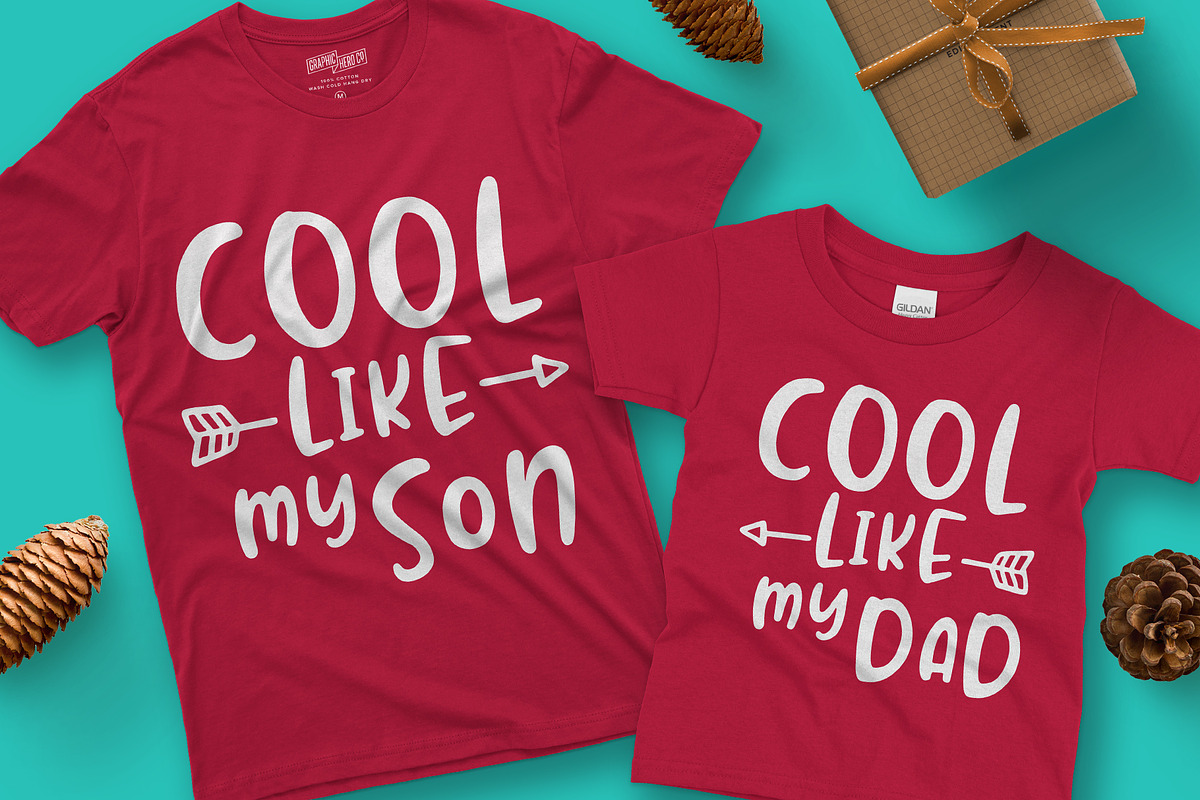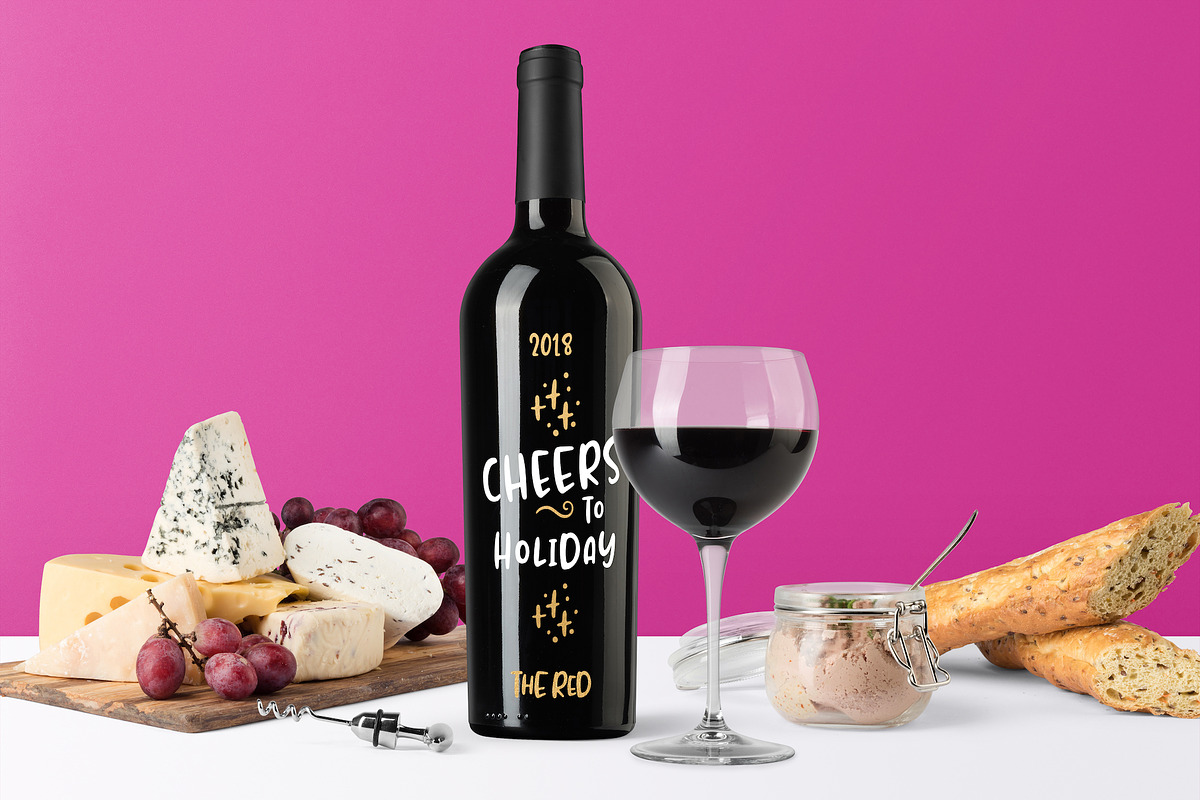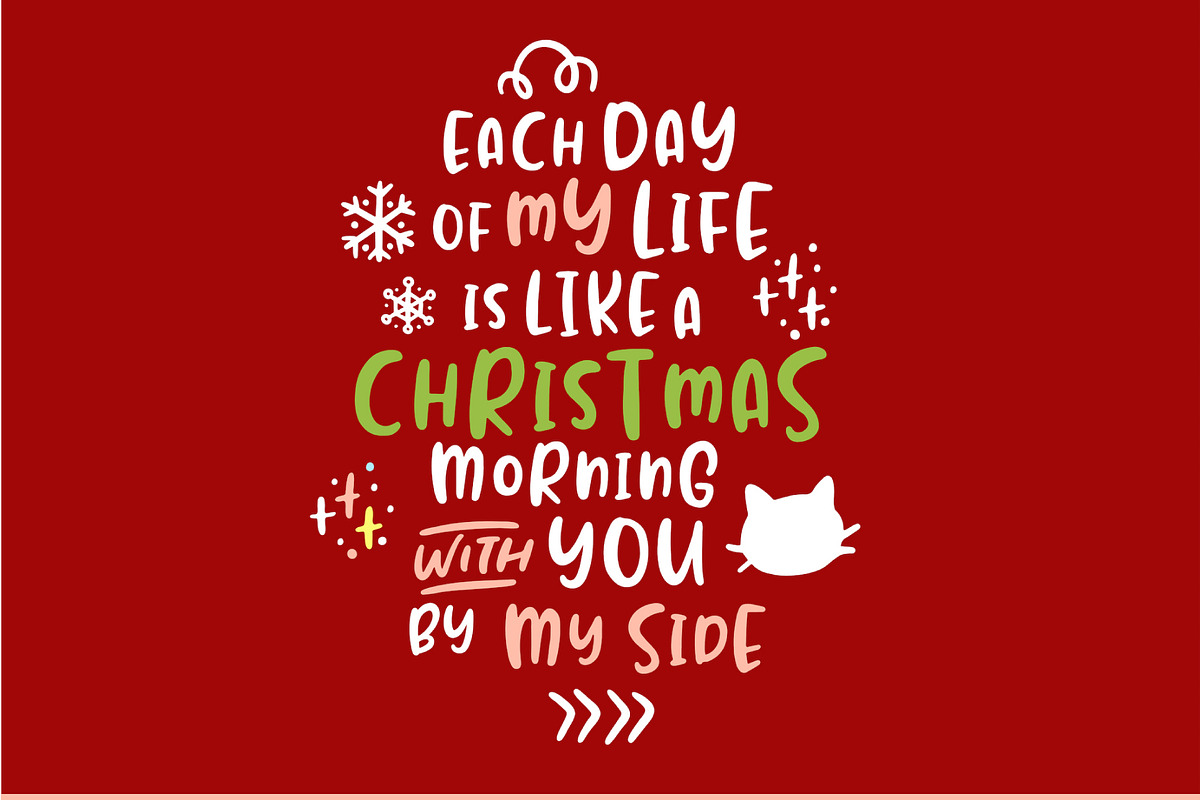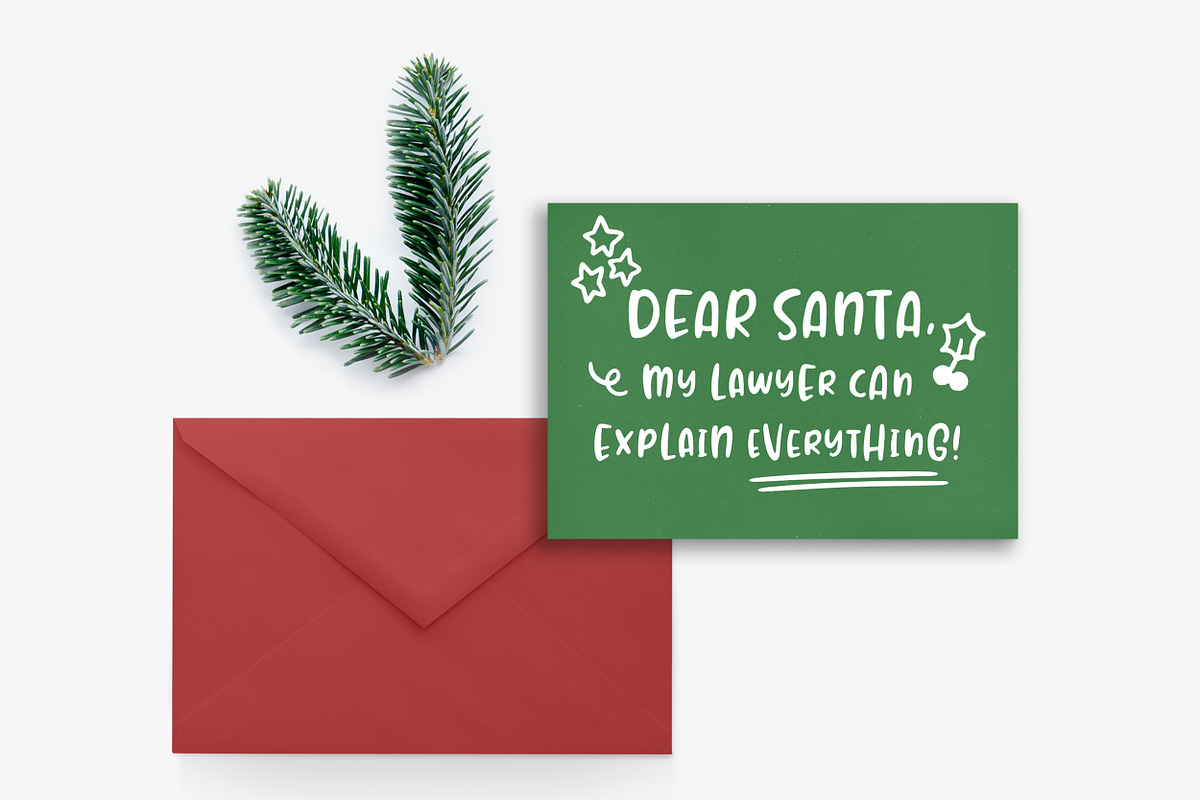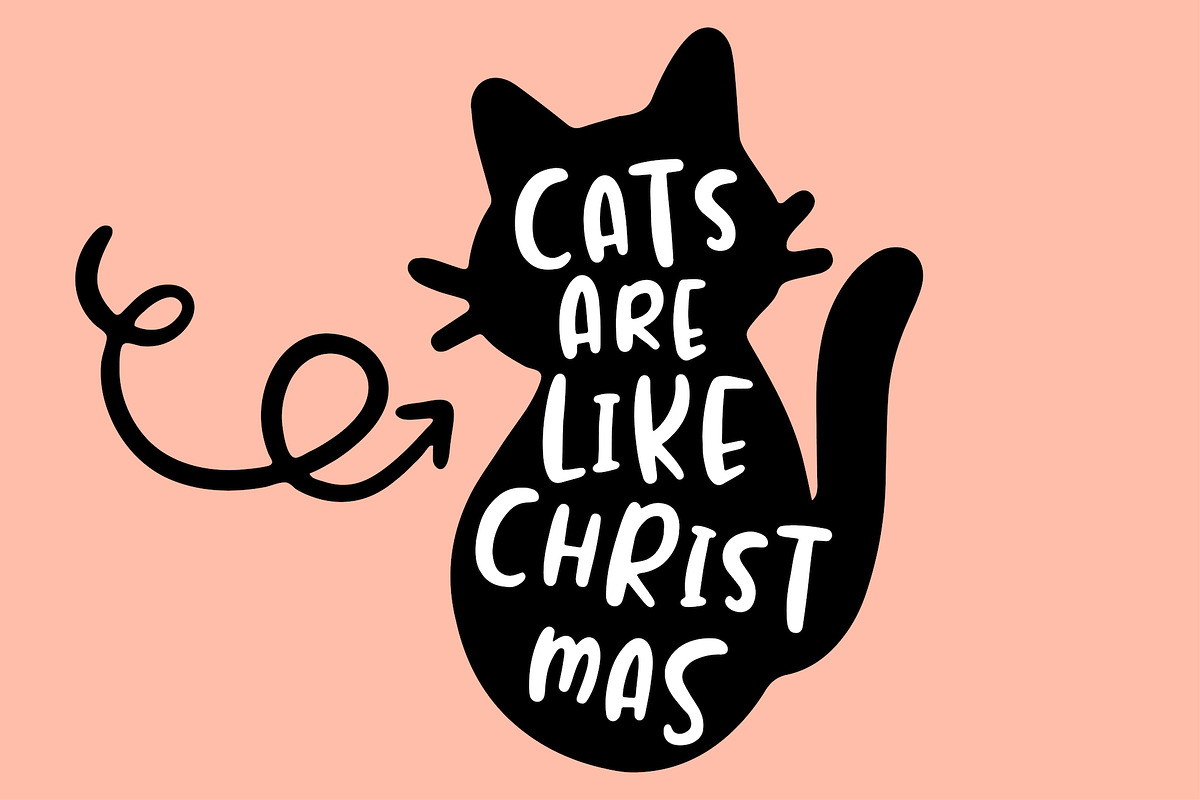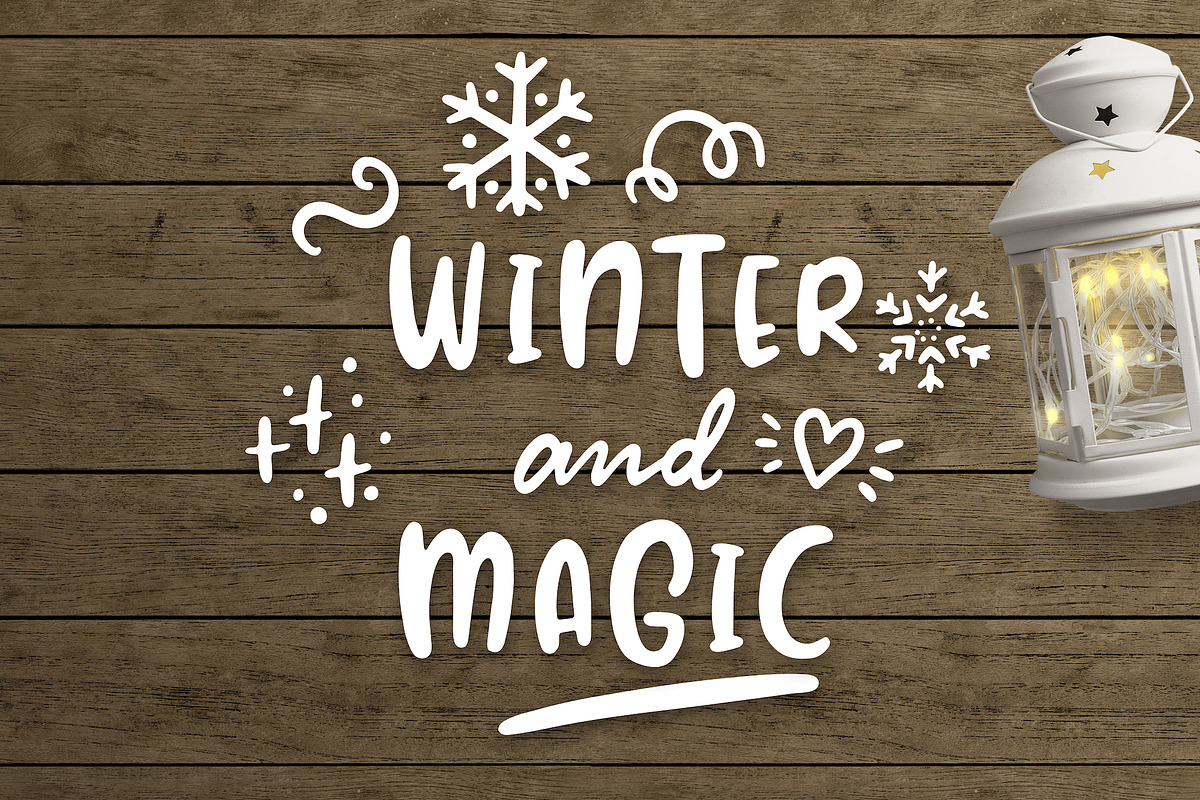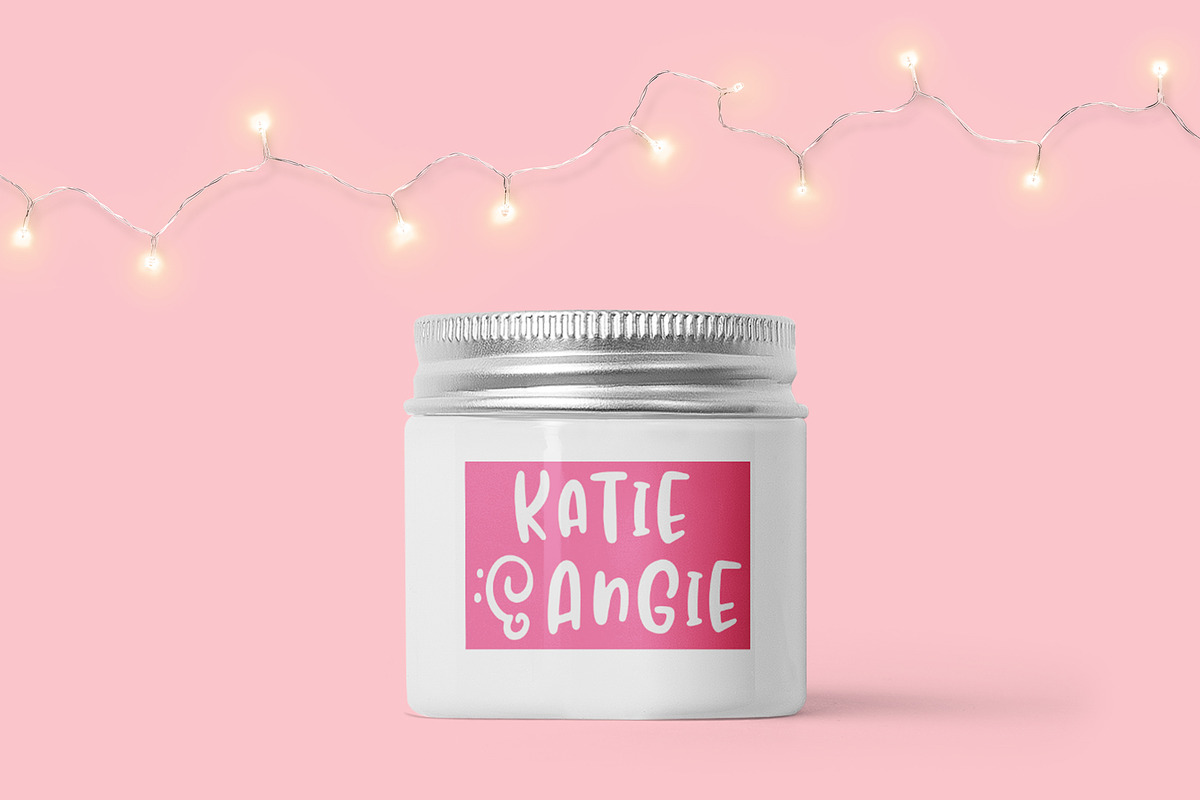
Jealous Kitty - Happy Christmas Font
Introducing Jealous Kitty - Smooth and Happy Christmas mixed Font with fun bonus fonts. Jealous Kitty has clean and smooth curves and it’s perfect for craft like Silhouette, Cricut and any vinyl cutting machines. The bonus catchwords, swashes and dingbats will add a cute touch on your holiday invitations, cards, posters and gift DIY projects.
You can mix and match uppercase and smaller lowercase to get fun results. It also comes with useful extra ligatures and alternates.
Jealous Kitty fully supports Western / Central and South Eastern European languages. You’ll get a ton of punctuations and 300+ extended Latin Characters.
Standard Characters A-Z, a-z, 0-9 and punctuations. Basic numbers; Tabular Lining Figures, Alternative; Proportional Lining Figures.
Ligatures and Alternates for extra fun
Multilingual Support for Western European, Central European and South Eastern European Languages.